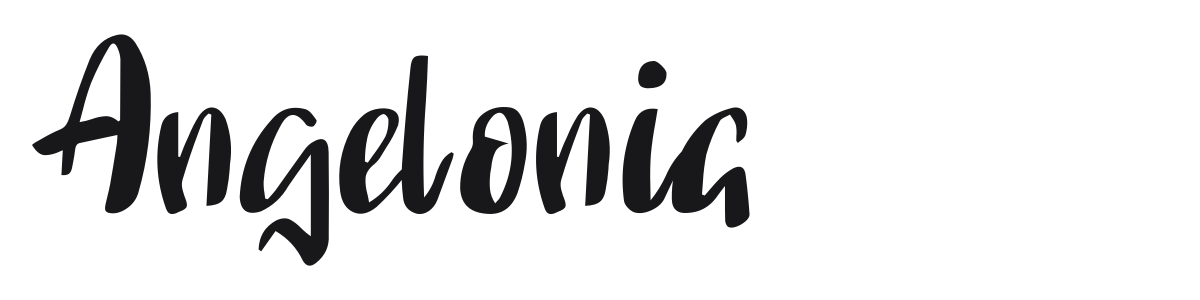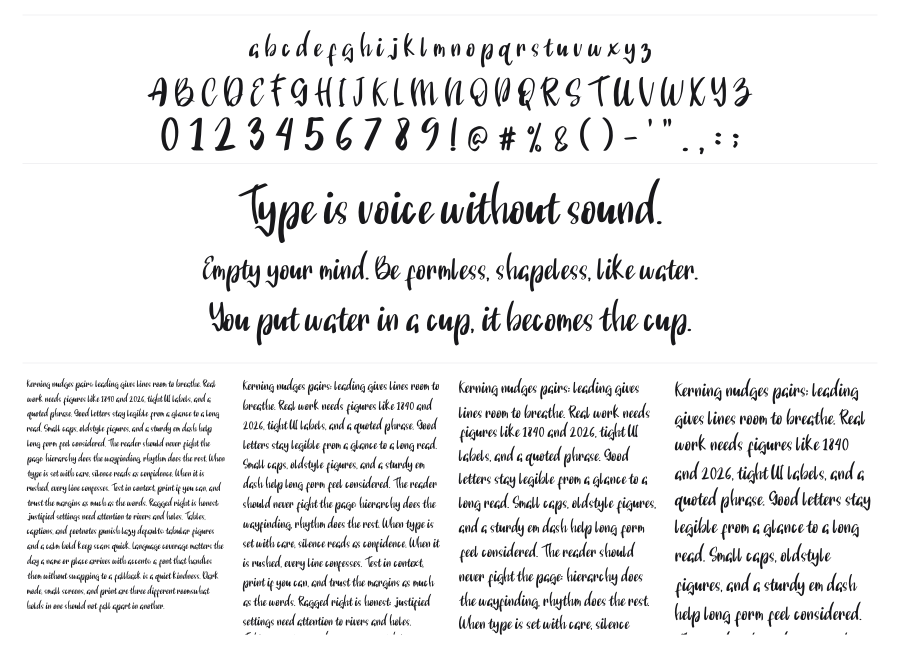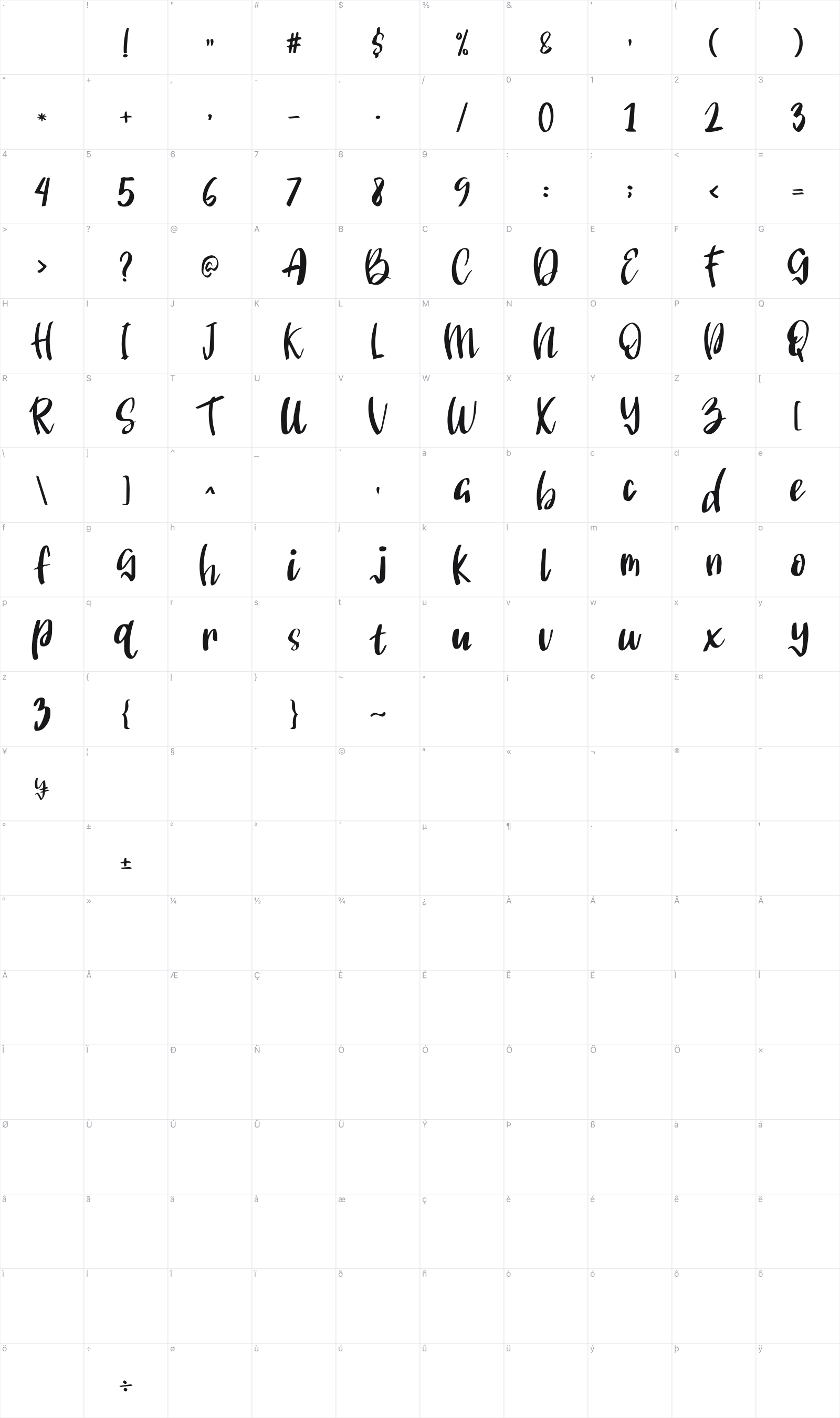
Angelonia
Angelonia is a bold brush script with the kind of confident, flowing strokes that look like they were painted in a single session. High contrast between the thick downstrokes and wispy upstrokes gives it real energy without losing legibility at headline sizes. It sits comfortably in branding, packaging, and any project that needs warmth and personality.